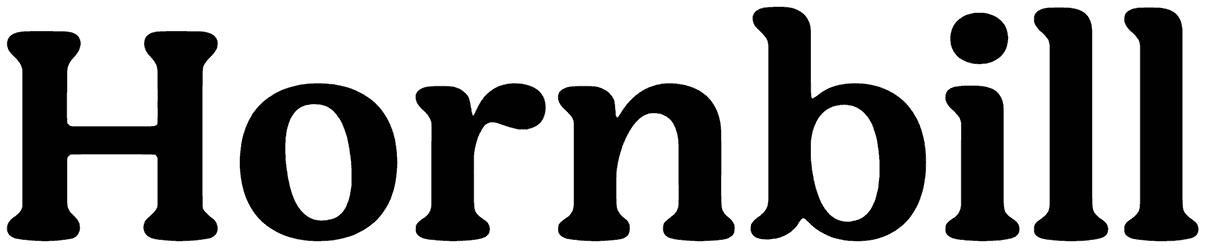
Hornbill Font
If you are looking for a majestic serif font that provides you with one marvelous style and three different weights, then you must consider Hornbill as a serious option. This retro font comes with highly legible letters and looks insanely great on web pages, banners, gift cards, business cards, or billboards.
Since it is able to add a vibe of professionalism, formality, vintage, or trustworthiness to your artwork, then you don’t have to be worried about the lack of numbers.